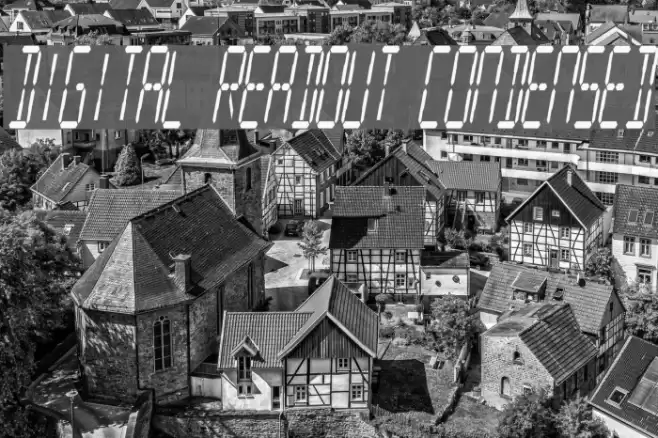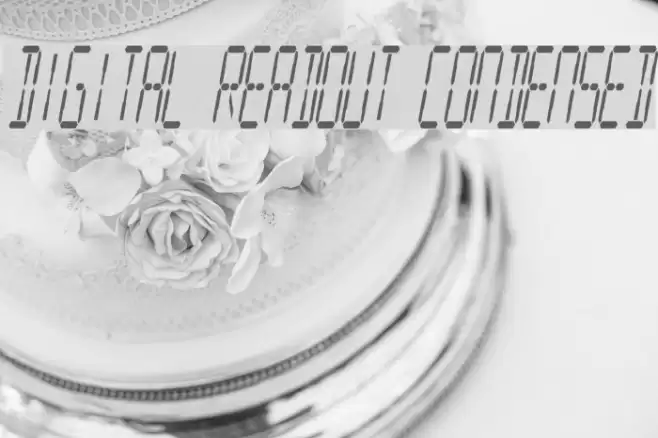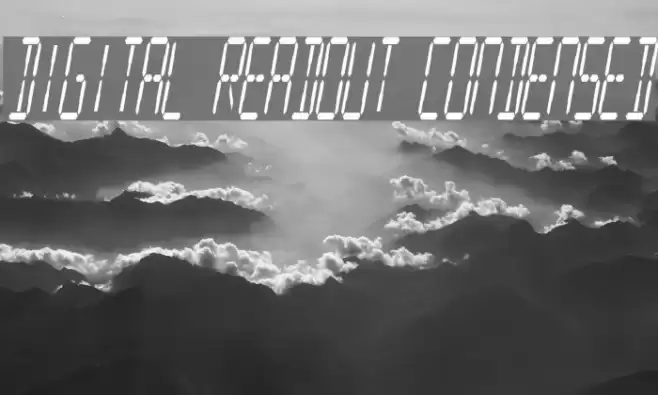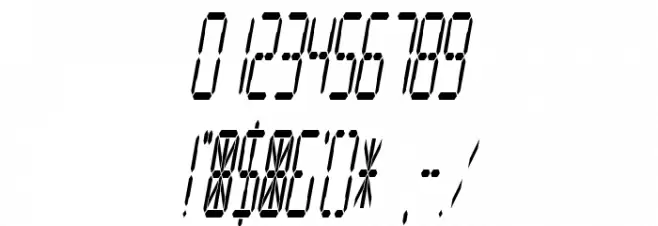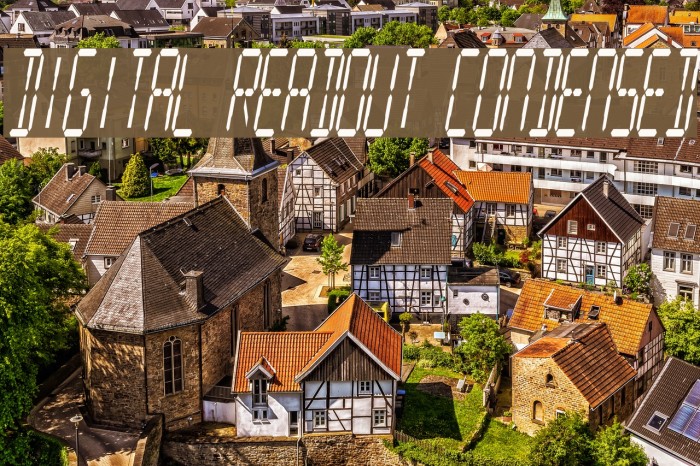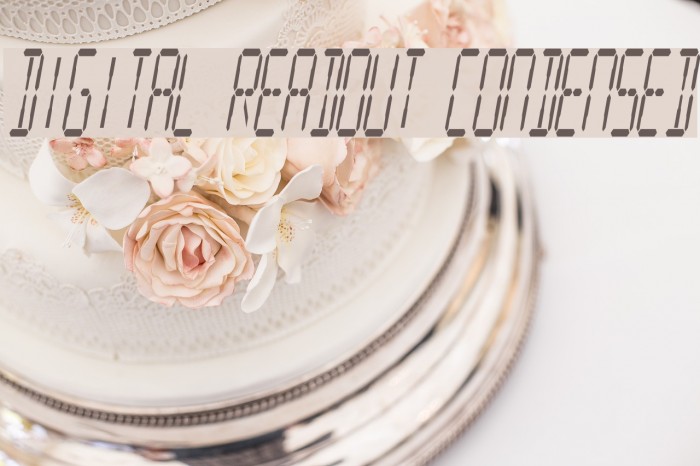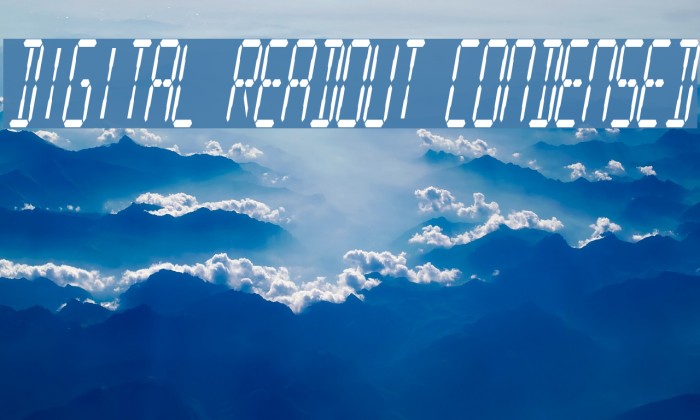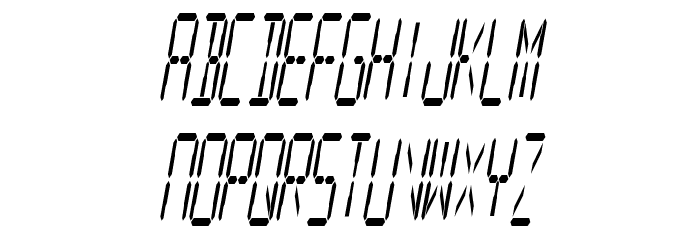
Digital Readout Condensed Font
Digital Readout Condensed Description
This font features a digital, futuristic design reminiscent of LED or LCD displays. The characters are composed of segmented lines, giving it a geometric and technical appearance. The condensed style allows for efficient use of space, making it ideal for digital interfaces or displays where space is limited. The uniformity and precision of the characters contribute to a clean and modern aesthetic, suitable for technology-related projects. The font maintains a consistent height across all characters, enhancing readability in digital formats.
A digital, segmented font with a futuristic and technical design from Futuristic fonts.
- Proposed Projects: Ideal for digital displays, tech-themed graphics, electronic device interfaces, and futuristic branding.
- Use Case: Headlines, Digital displays, Tech interfaces